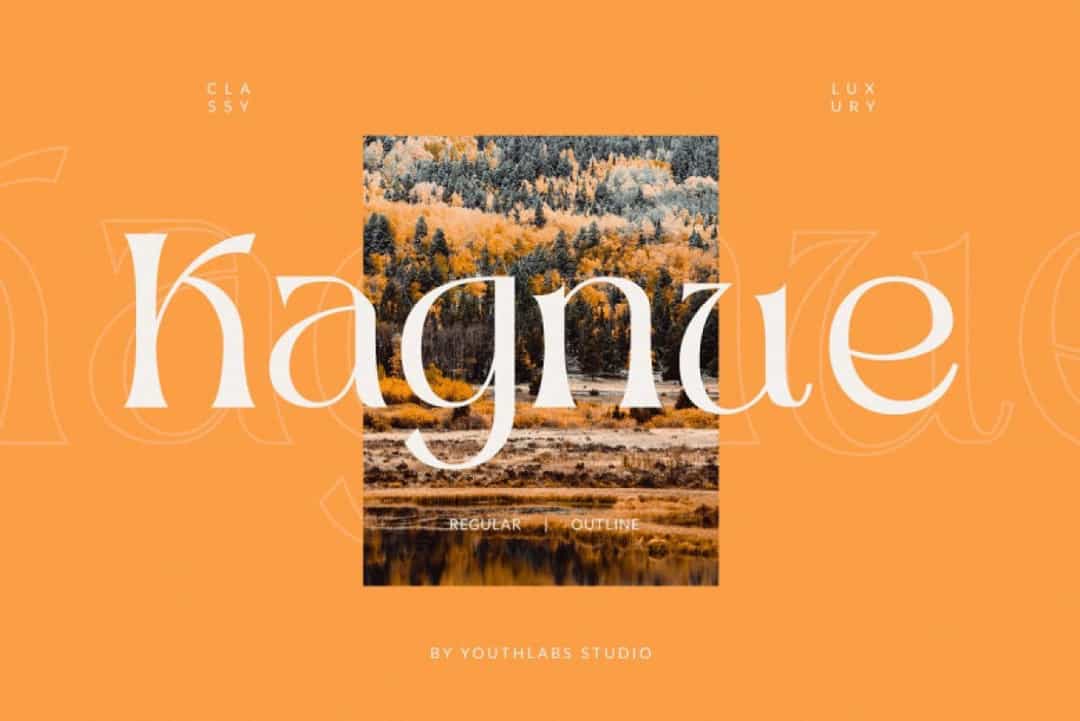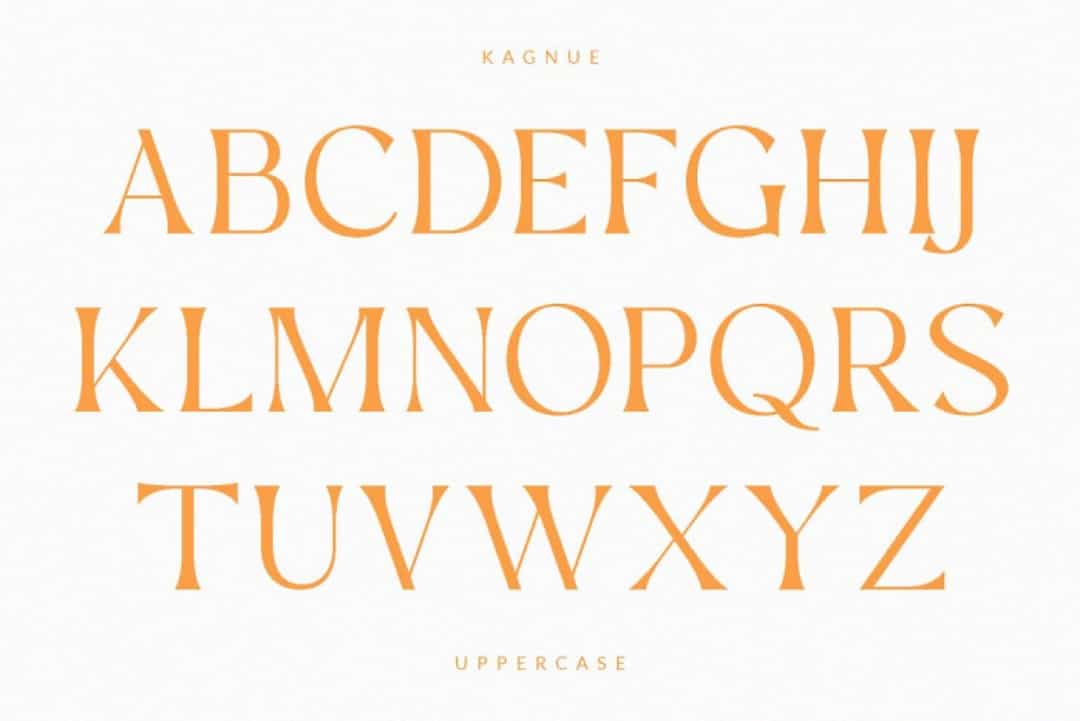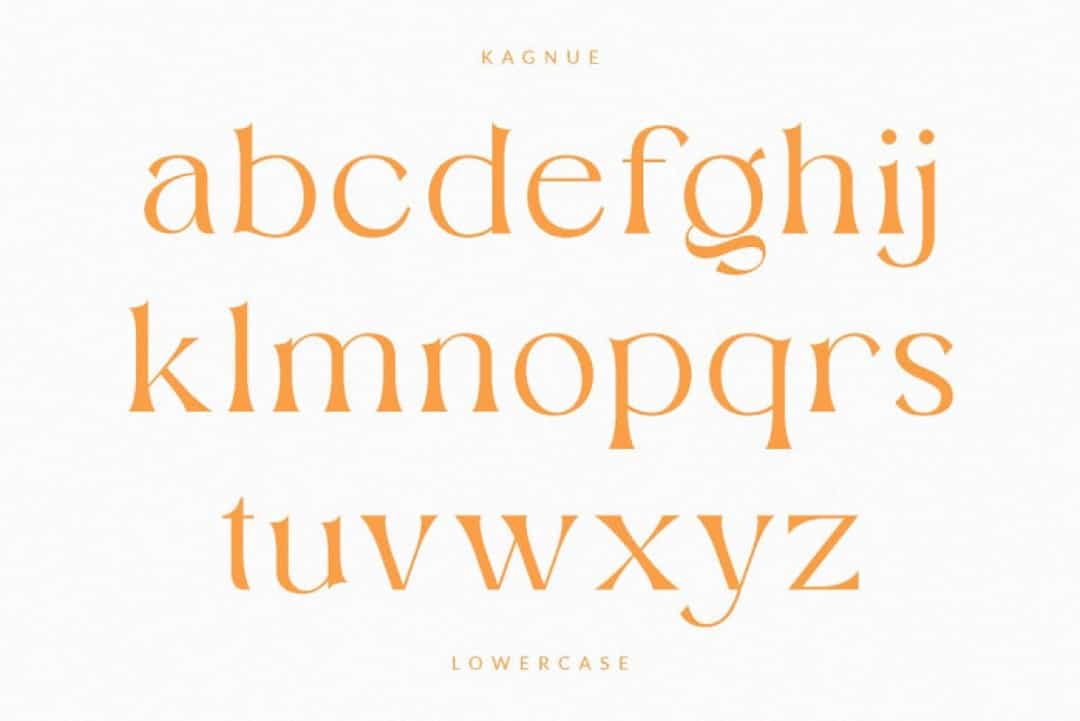
Kagnue is an elegant yet modern style serif font. Combining classic italic font with contemporary forms, Kagnue Serif comes packed with Opentype features and boasts more attractive curves for added impact.